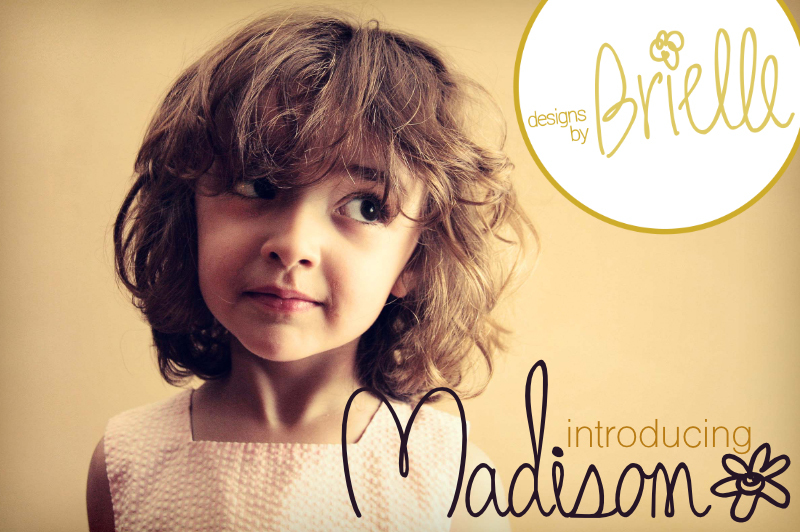
Madison is a delightfully whimsical handwritten font designed by Brielle Lang of Designs by Brielle. Its light, flowing strokes evoke a sense of effortless elegance, making it a versatile choice for a variety of design applications.
From playful greeting cards to charming wedding invitations, the Madison font's organic, handcrafted aesthetic lends a warm, personal touch to any project. Its unique floral embellishment adds a touch of playful flair, further enhancing the font's visual appeal.
Madison's versatility and distinctive style make it a standout choice for designers seeking to infuse their work with a touch of contemporary sophistication and timeless charm.
A prim and proper (yet sassy) handwritten script font.
Madison
Brielle Lang